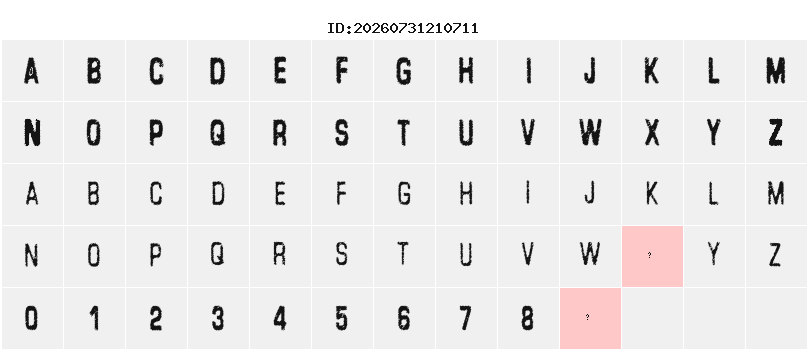
Lead Coat Preview
• Font Name: Lead Coat
About Lead Coat.ttf
Lead Coat.ttf is a modern, elegant sans-serif font designed for ultimate readability and visual harmony. Perfect for branding, headlines, web design, and print materials.